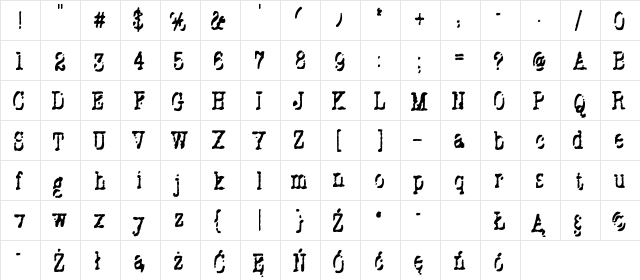
Stuk Puk Regular
Design Context for Stuk Puk Typeface
Stuk Puk takes a measured approach to typography — its balanced proportions and neutral character make it a reliable workhorse for both digital and print work.